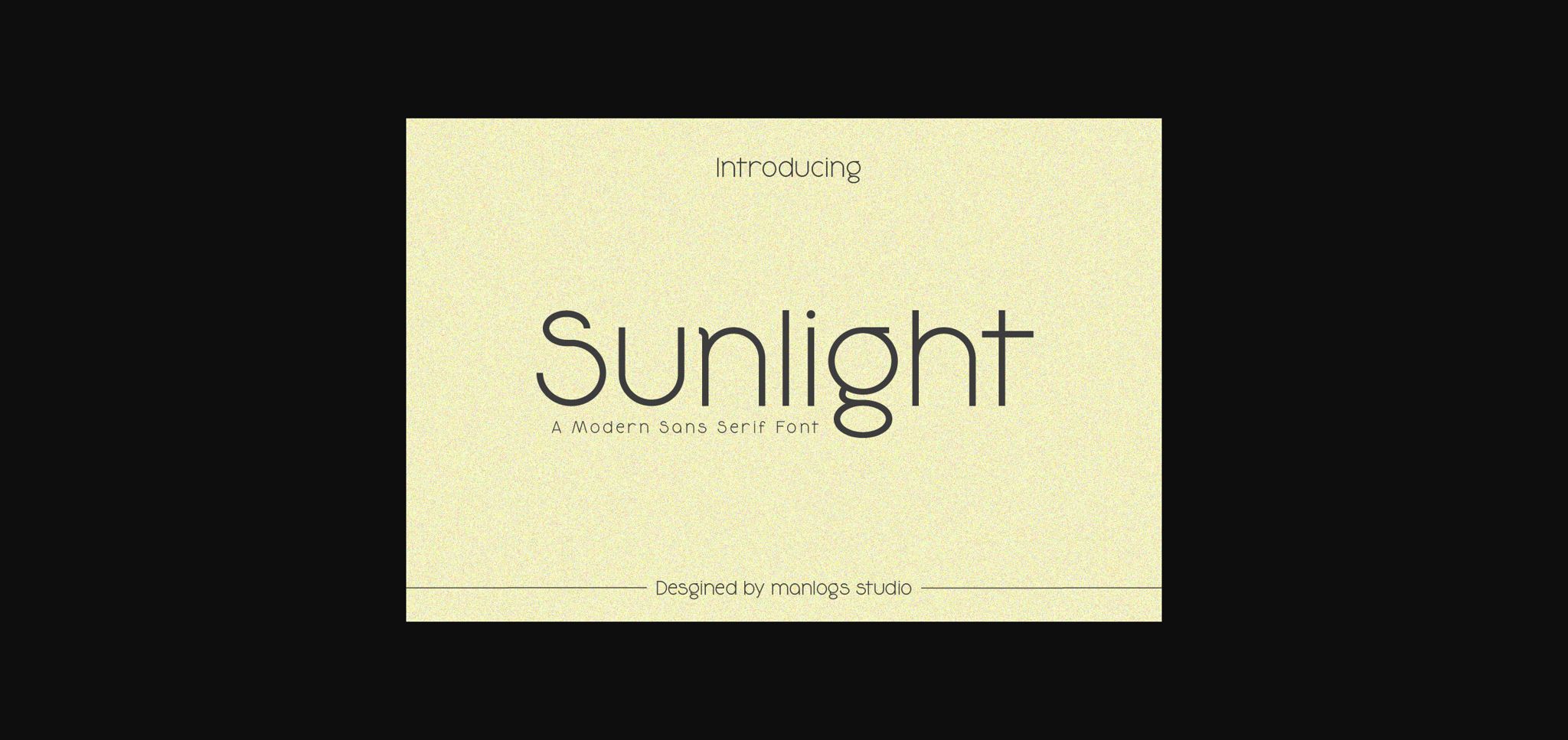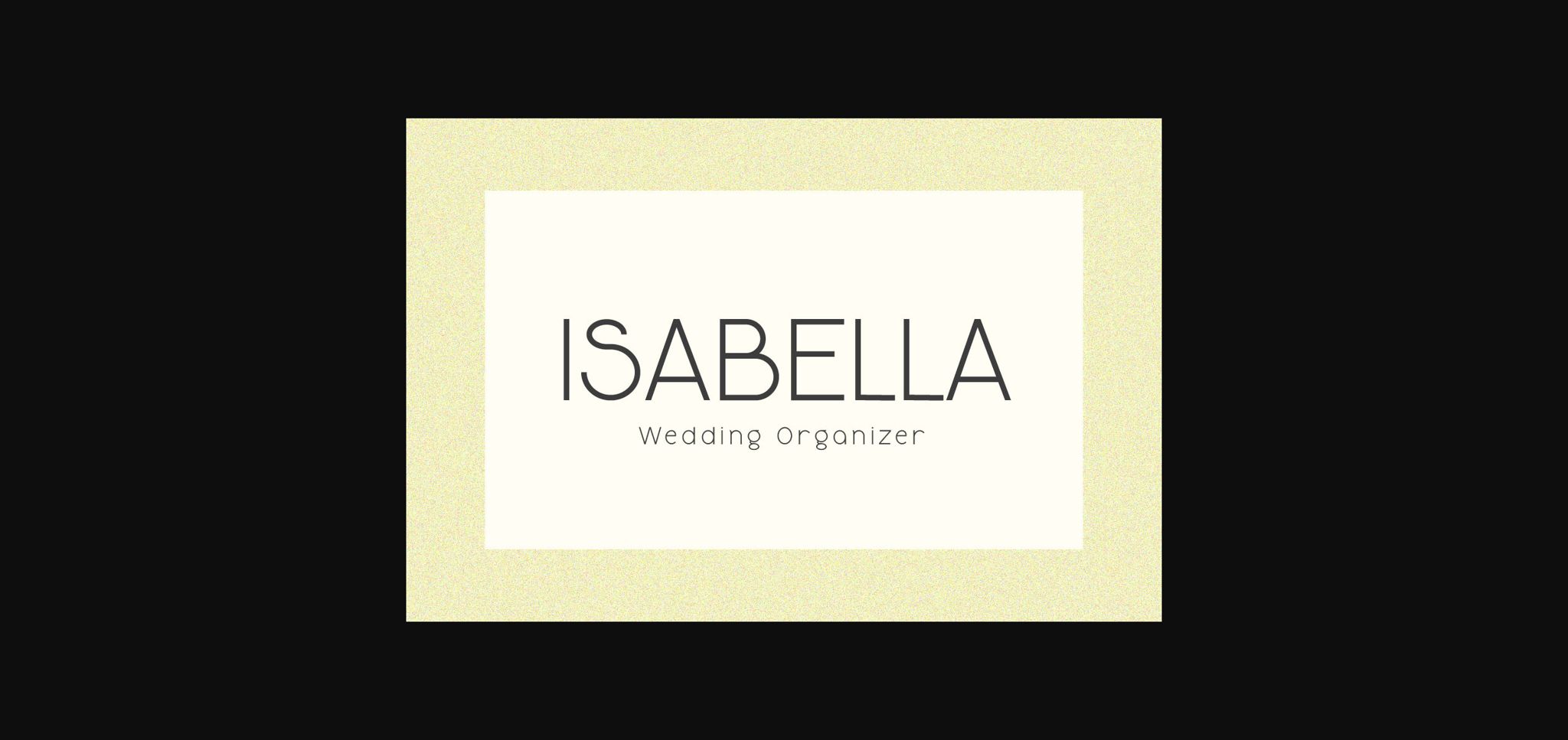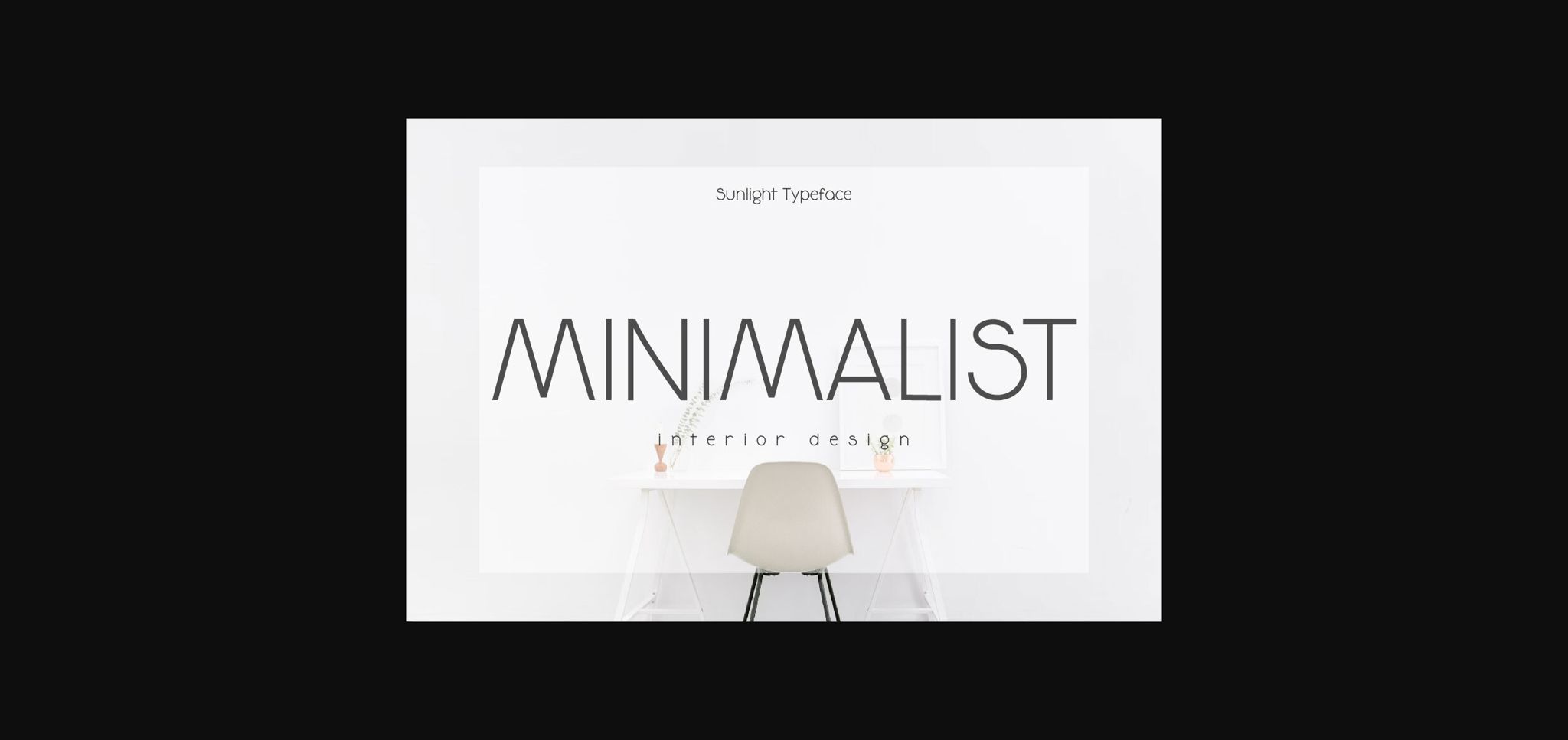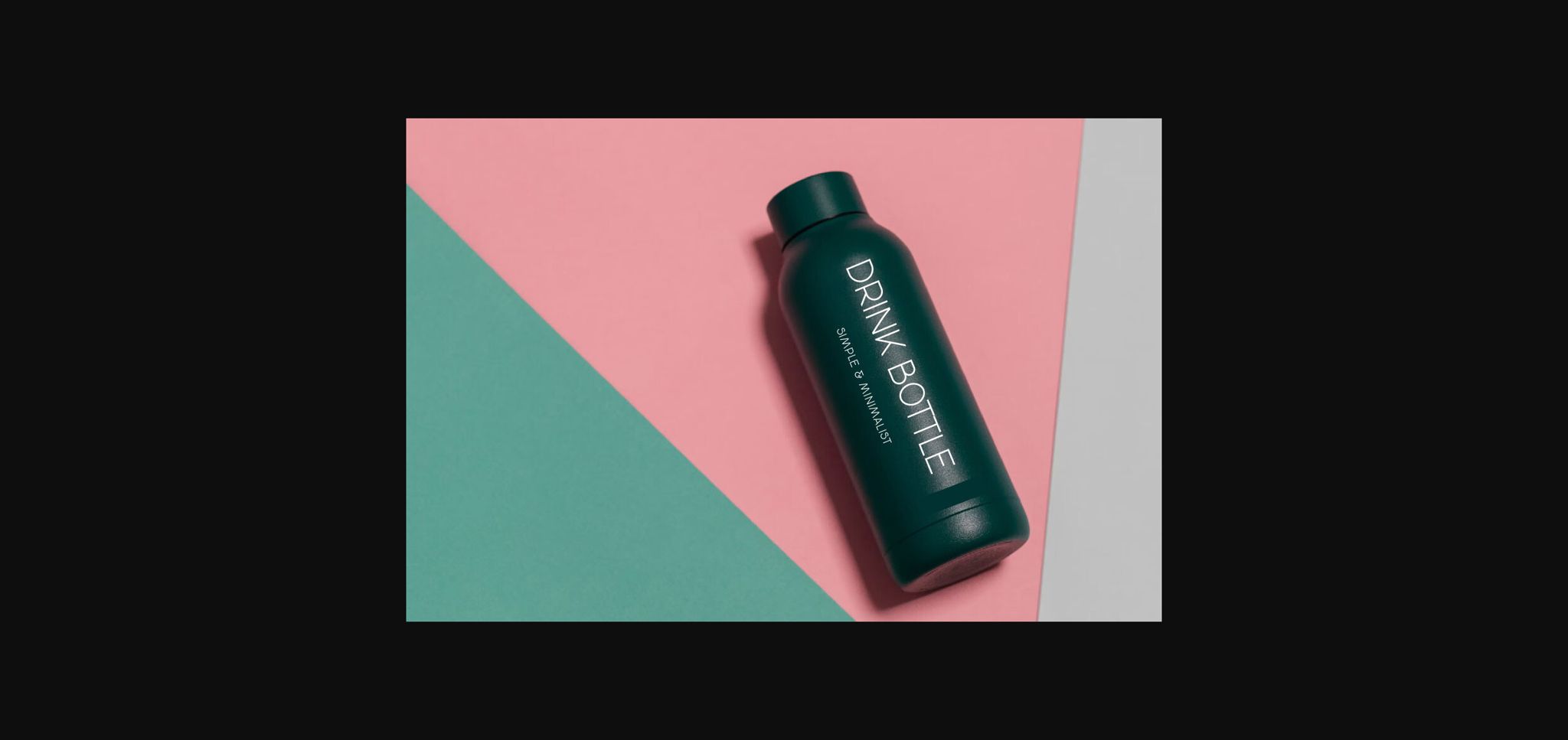
About Sunlight Font
Sunlight is a simple sans-serif font with a clean, Aesthetic style. This font is perfect for creating a minimalist aesthetic on craft design, mugs, wedding, invitations card, home decor design, magazine covers, quotes, t-shirts, gift labels, logos, web design, branding and more!